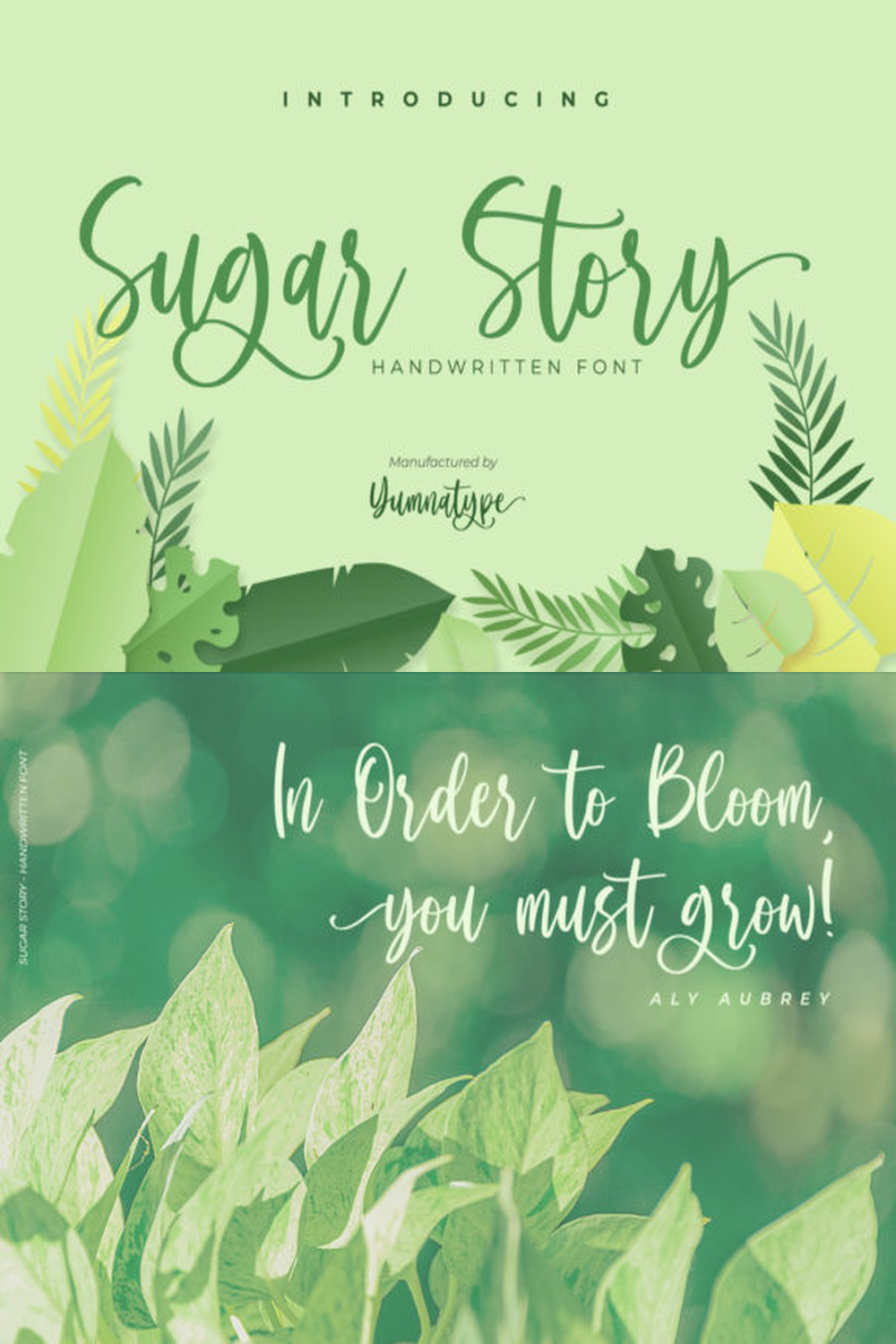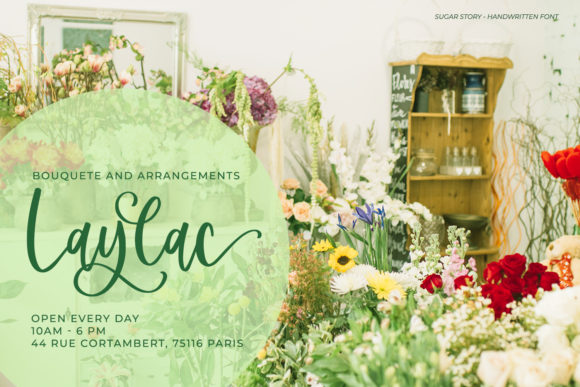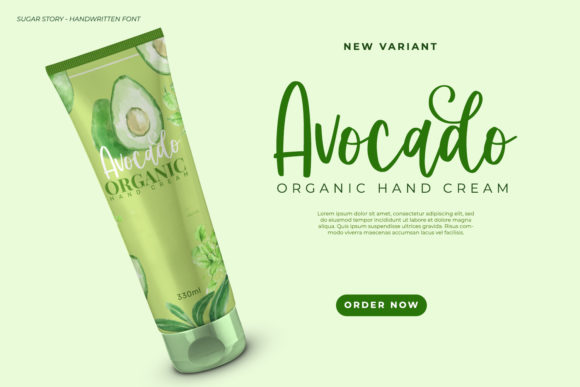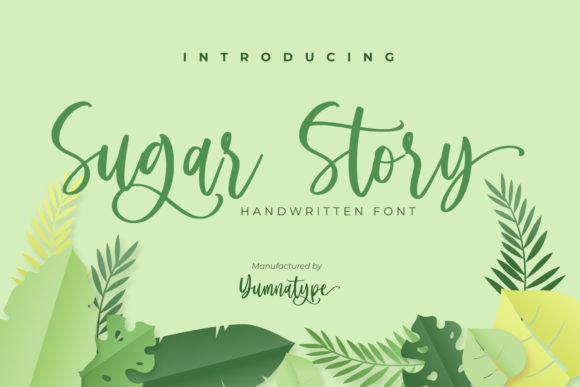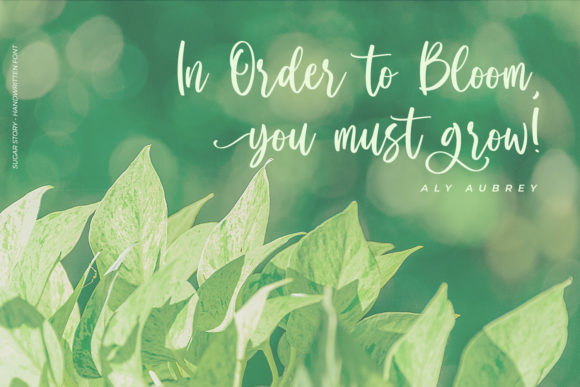
Sugar Story Font: Delicate Handwritten Script for Wedding & DIY Design
About the Sugar Story Font
Let us introduce you to Sugar Story Font, where timeless design meets modern craftsmanship. Sugar Story is a delicate handwritten font, featuring a fresh and relaxed vibe. This gentle font will look gorgeous on a variety of design ideas. It will add a joyful and romantic touch to each of your projects!